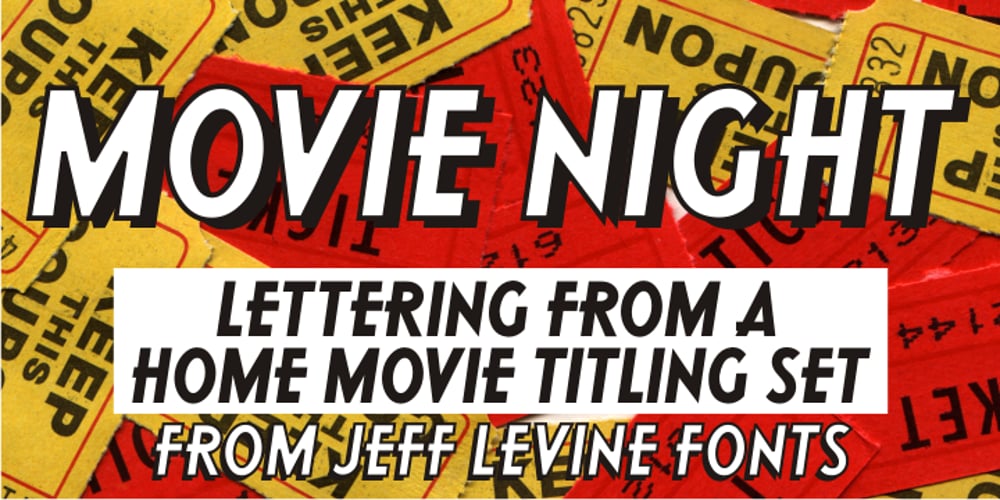
Movie Night JNL Font Family was designed by Jeff Levine and published by Jeff Levine. Movie Night JNL contains 1 styles and family package options. Movie Night JNL was modeled from one of a number of ceramic home movie titling kits on the market that were popular during the 1950s and 1960s. The camera buff would set up the letters against a colored background and photograph clever titles to describe their 8mm home movies of vacations, sightseeing or their darling children (or grandchildren).